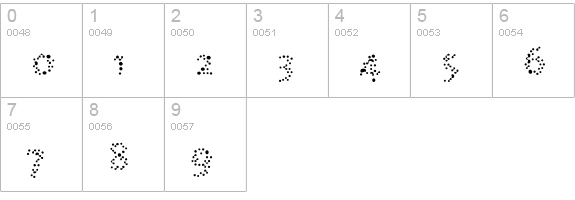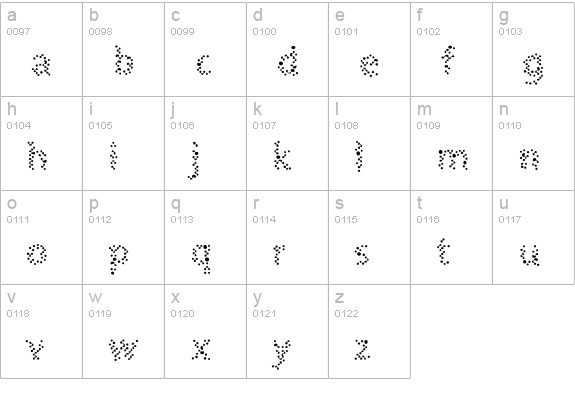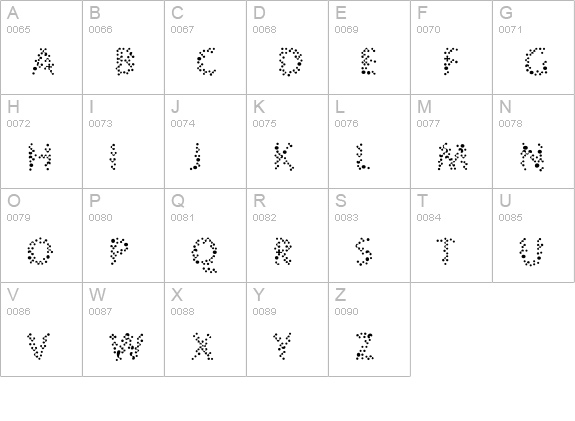
Nebulae Two Font Details
Nebulae Two font is a stunning display typeface that exudes a sense of cosmic elegance and modern sophistication. Its unique design features intricate interstellar patterns and fluid curves that evoke a sense of mystery and wonder. The font's sleek, futuristic appearance makes it perfect for a wide range of design projects, from branding to editorial layouts. Best of all, Nebulae Two font is completely free to download at FontsMarket.com. This means you can easily add this eye-catching typeface to your collection without any cost, allowing you to elevate your designs with its celestial charm and artistic flair. Don't miss out on the opportunity to enhance your creative projects with the captivating beauty of Nebulae Two font – download it today and let your designs shine bright like the stars.